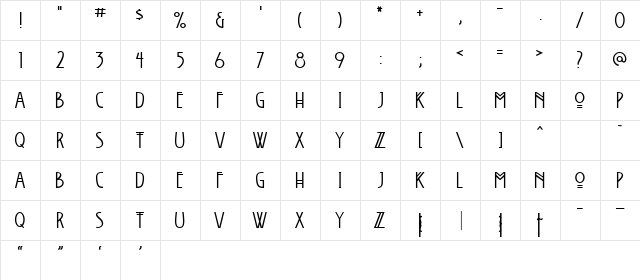
CK Gatsby Regular Font Preview
CK Gatsby Regular
Design Context for CK Gatsby Typeface
CK Gatsby is a composed and adaptable typeface that performs quietly and consistently across a wide range of design contexts.